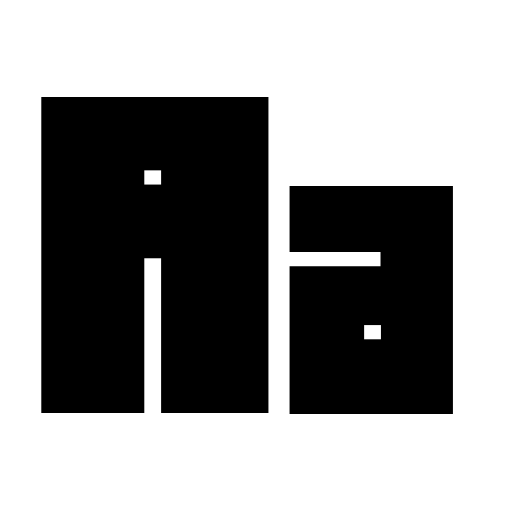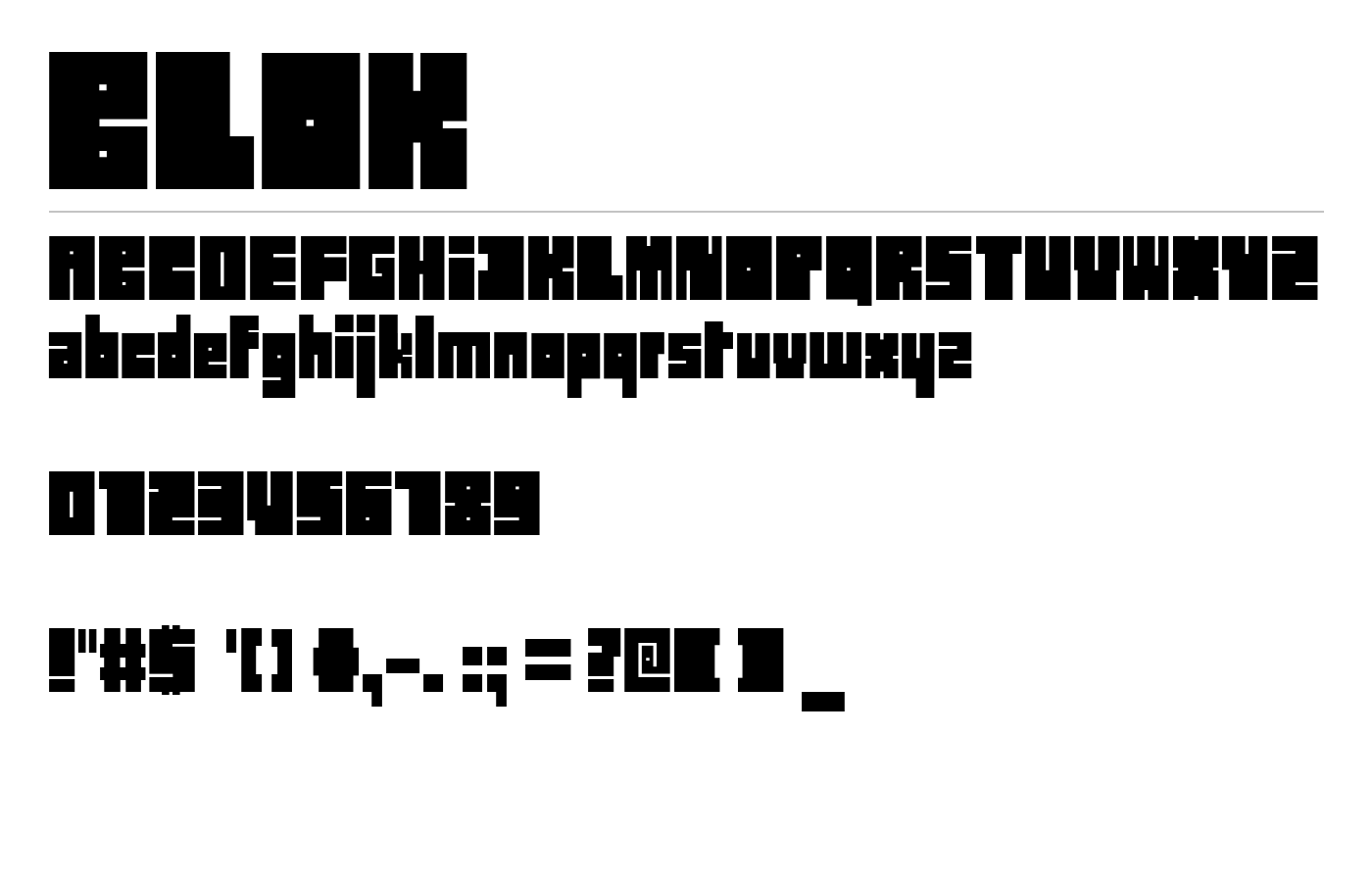
BLOK is a bold, geometric sans-serif font defined by its strong, blocky shapes and uniform stroke weight, giving it a very modern and industrial feel. Its square and condensed letterforms, combined with consistent height and tight spacing, make it ideal for impactful headlines, logos, and designs that require a strong visual presence with a futuristic or tech-inspired vibe. This font works best in display settings where its unique rigidity and boldness can shine.
BLOK Font
About BLOK Font
| Font family | BLOK Font |
| Designer | Zuzanna Walas |